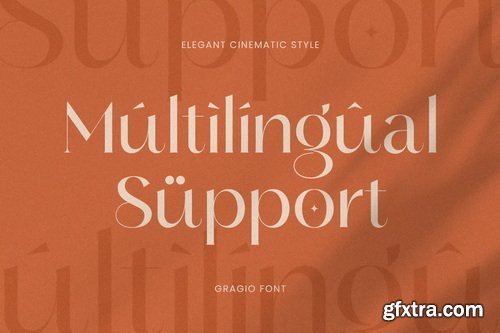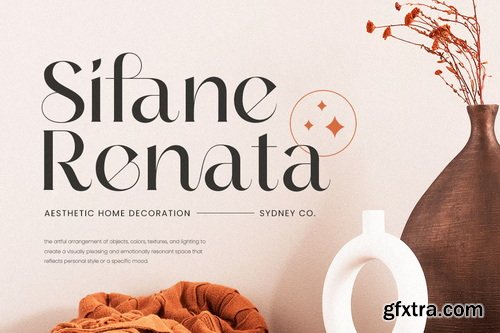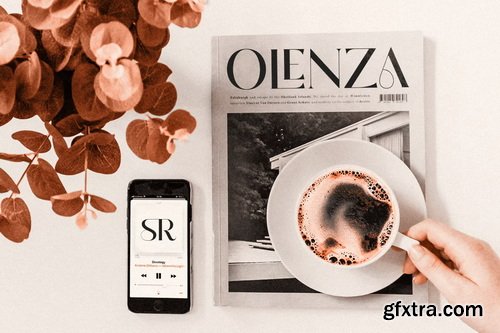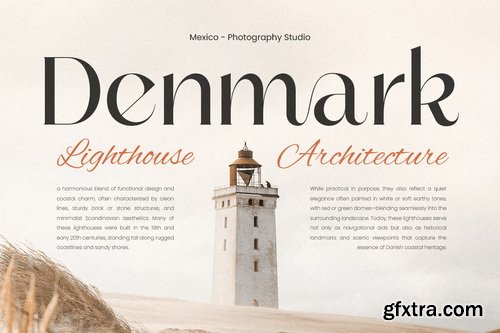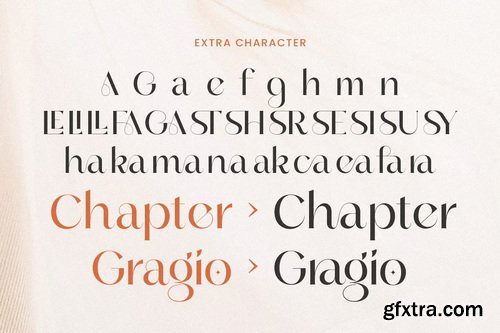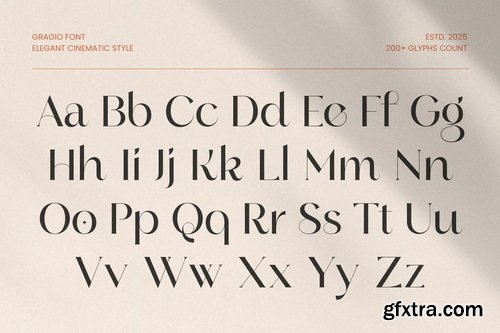
Gragio - Elegant Cinematic Font
Gragio is an elegant serif font that brings cinematic beauty to your design. With its graceful curves and high contrast strokes, Gragio captures the essence of luxury and sophistication—making it perfect for editorial layouts, fashion branding, film titles, and premium packaging. Every character is drawn with refinement and drama in mind, allowing your words to feel elevated and powerful. Whether used in large headers or refined logotypes, Gragio delivers timeless impact with a modern touch. Let your design speak with elegance and boldness through Gragio, the perfect font for classy and cinematic visual storytelling.